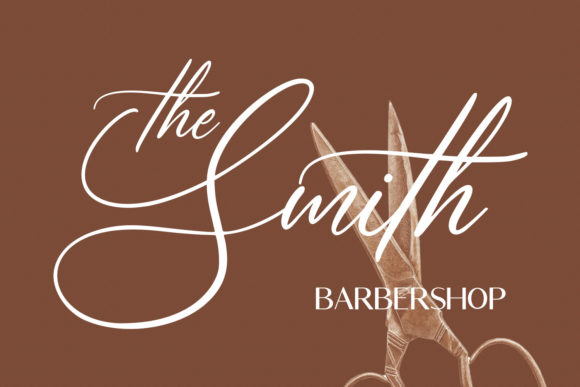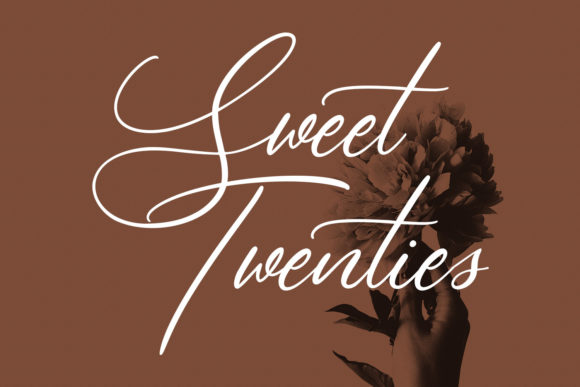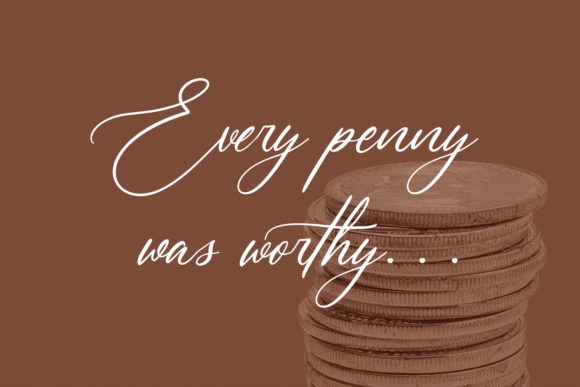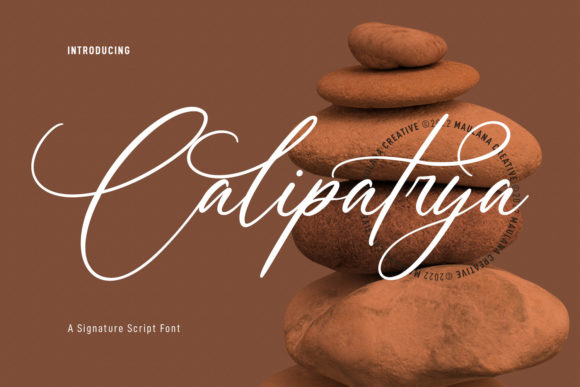
The Magic of Calipatrya Font: Elevate Your Designs with this Stunning Script
Ah, the quest for the perfect font! I still remember the time I was working on a project for a client who wanted a elegant, yet playful vibe. I spent hours scouring through font libraries, but nothing seemed quite right. That was until I stumbled upon Calipatrya Signature Script. It’s been a game-changer ever since! In this article, I’ll share my love for this beautiful font, its features, and how to make the most of it in your designs.
What Makes Calipatrya Font So Special?
Calipatrya Signature Script is a fancy handwritten script font that boasts medium contrast strokes, fun characters, ligatures, and alternates. Its unique blend of elegance and playfulness makes it perfect for a variety of design projects, from branding and packaging to invitations and social media graphics.
Here’s what I love about Calipatrya Font:
- ✨ Elegant and sophisticated, yet approachable and friendly
- ✅ Medium contrast strokes for a beautiful, dynamic look
- 🎉 Fun characters, ligatures, and alternates for added creativity
- 💻 Highly versatile and suitable for various design projects
And, like any font, it’s not without its quirks:
- ⚠️ Limited use of uppercase letters, but the alternates make up for it
The Story Behind Calipatrya Font
While the true story behind Calipatrya Font remains a mystery, it’s easy to imagine that its designer was inspired by the art of handwriting and the world of elegant scripts. Perhaps they wanted to create a font that would evoke a sense of sophistication and playfulness, perfect for designers and crafters looking to elevate their work.
| What makes Calipatrya Font unique? | Its medium contrast strokes, fun characters, ligatures, and alternates create a distinctive, elegant look. |